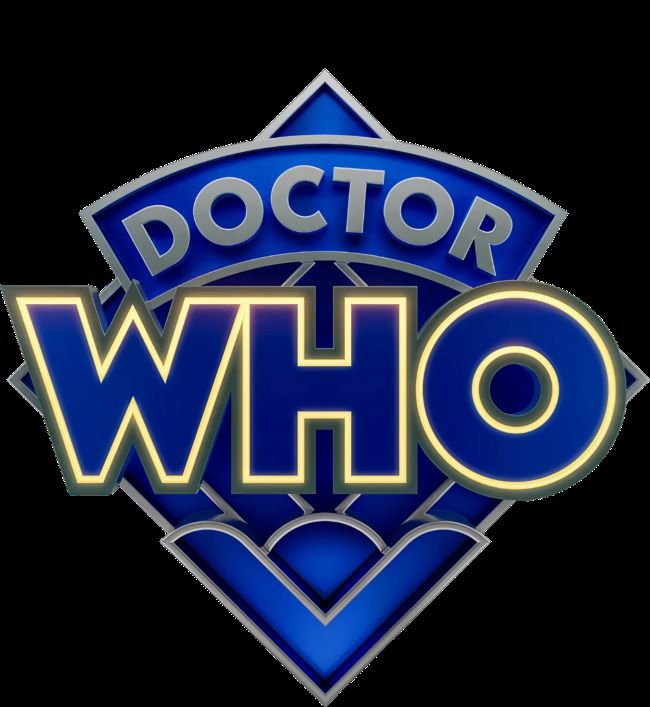
Doctor Who Font is a sleek geometric sans-serif font — Jost, available free on Google Fonts — used in the latest era of the BBC’s long-running science fiction series that first aired in 1963, following the Doctor, a time-travelling Time Lord who explores the universe in a blue police box called the TARDIS.
The clean, modern sans-serif font reflects the show’s continual reinvention: a production now over sixty years old that keeps finding new visual languages to express an essentially timeless premise about curiosity, compassion, and the vastness of time and space.